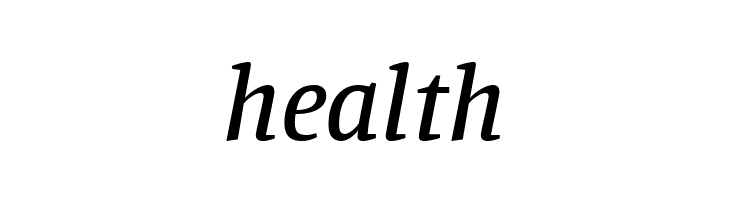
Manuale Bold Font
A bold serif typeface with classic elegance and medium contrast, ideal for formal use.
Manuale SemiBold Font
A semi-bold serif font with a classic yet modern style, offering excellent readability.
Manuale Bold Italic Font
A bold, italic serif font with elegant and dynamic styling.
Manuale Medium Font
A classic serif font with medium weight, offering readability and a timeless appeal.
Manuale SemiBold Italic Font
A classic serif font with semi-bold weight and italic style, offering elegance and readability.
Manuale Medium Italic Font
A medium weight, italic serif font with classic elegance and refined style.
Manuale Italic Font
An elegant serif font with a classic italic style and moderate stroke contrast.
Manuale Regular Font
A classic serif font with a modern touch, offering elegance and versatility.